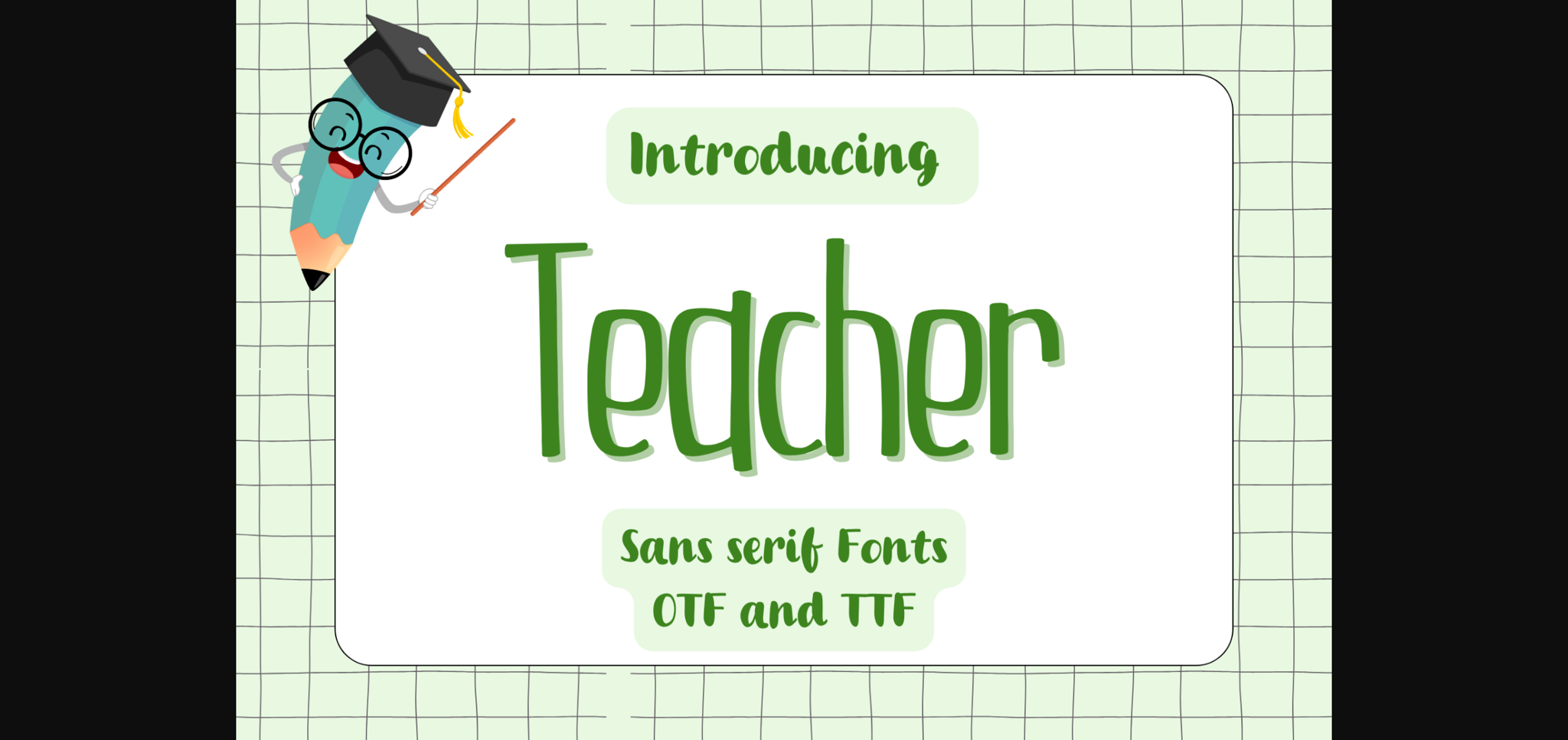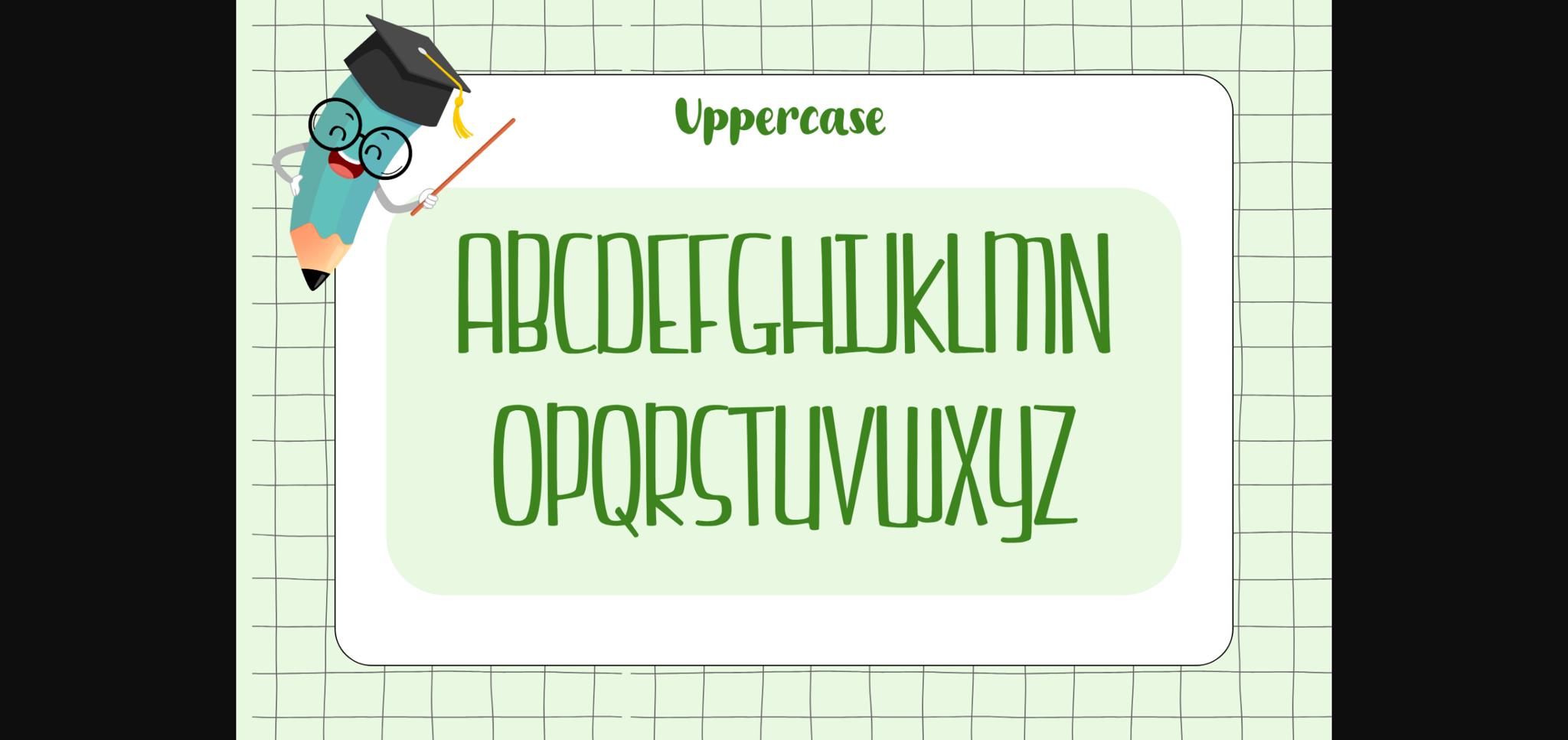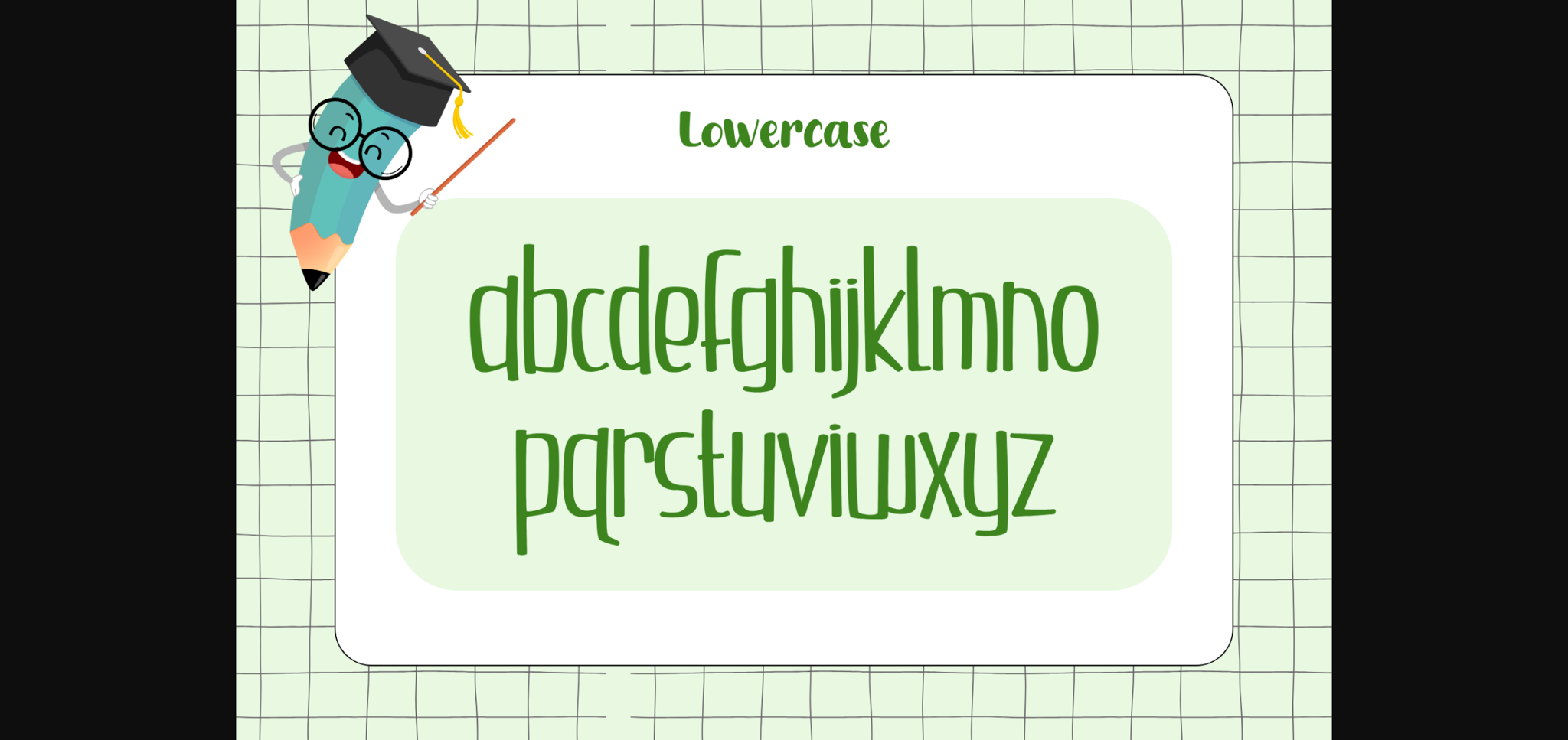
About Teacher Font
Teacher is a fun and quirky handwritten sans-serif font that weaves personality into every stroke. With playful, irregular letterforms, it exudes a spontaneous charm. Ideal for projects seeking a lighthearted and individualistic aesthetic, Teacher adds a touch of whimsy and character to your creative expressions.